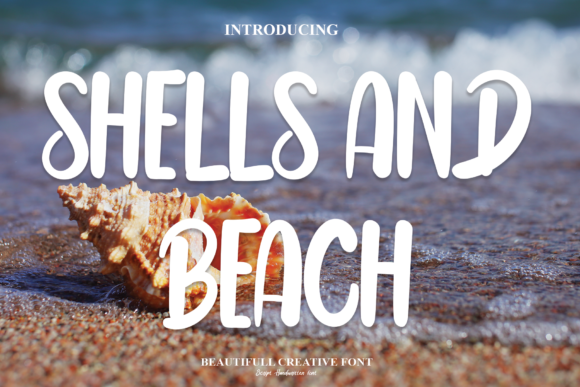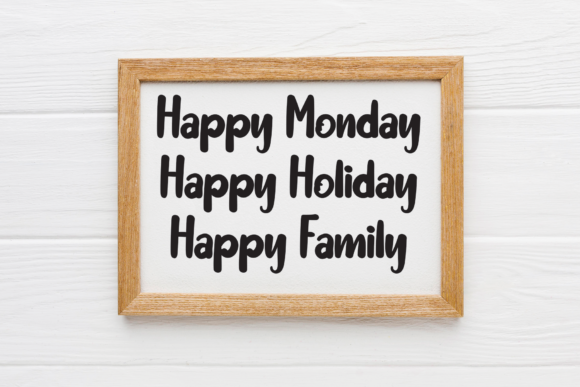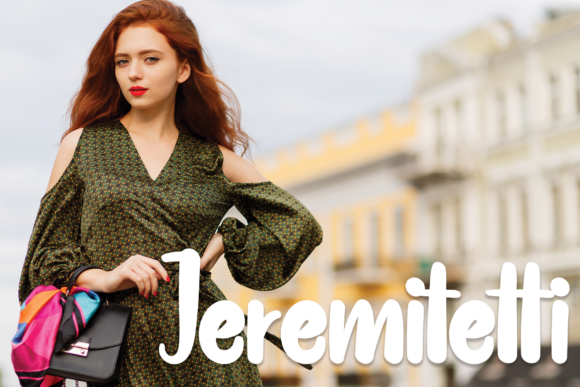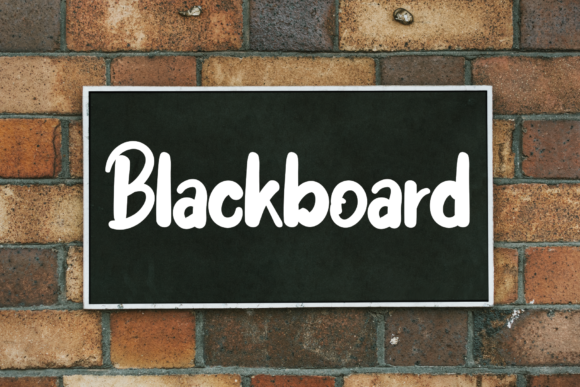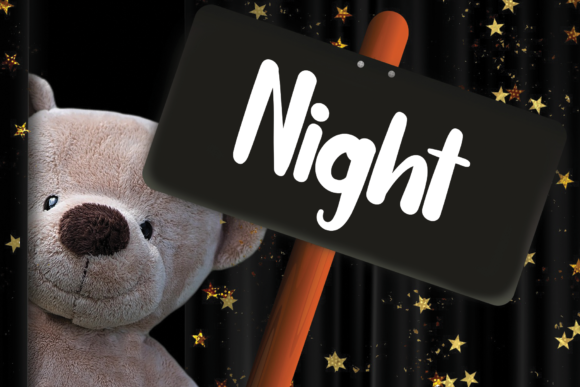
Shells and Beach Font
About Shells and Beach Font
Shells and Beach is a charming and versatile handwritten font that embodies simplicity, uniqueness, and adaptability. With its elegant and organic letterforms, this font is a fantastic addition to a variety of design projects, allowing you to create stunning visuals that capture the essence of coastal beauty and relaxation.
The simplicity of Shells and Beach ensures readability and clarity, making it a great choice for conveying your message effectively across different design applications. Whether you’re designing wedding invitations, crafting business cards, or creating heartfelt greeting cards, the font’s clean lines and straightforward design maintain a polished and professional appearance.
What sets Shells and Beach apart is its unique and handcrafted feel. The font’s delicate strokes and natural flow give it a personal touch that adds authenticity and warmth to your designs. The subtle imperfections and artistic details in each character evoke a sense of artisanal craftsmanship, making your projects stand out.
Shells and Beach’s adaptability is a standout feature, allowing it to seamlessly blend with various design styles and themes. Whether you’re aiming for a beachy and relaxed vibe or a more sophisticated coastal look, the font can be customized to suit your project’s specific mood and tone.
Adding Shells and Beach to your wedding invitations can infuse your special day with a sense of seaside romance and tranquility. The font’s elegant and flowing letters evoke the gentle waves and the beauty of seashells, creating a captivating visual representation of your love story.
For business cards, Shells and Beach offers a unique and memorable aesthetic that sets you apart from the crowd. Its adaptability allows you to tailor the font to reflect your brand’s identity, whether you’re a beach-themed boutique or a coastal-inspired service.
Greeting cards become more heartfelt and meaningful with the addition of Shells and Beach. Whether it’s a birthday, thank-you, or any special occasion card, the font’s organic and graceful style conveys your sentiments in a genuine and heartfelt way.
On social media, Shells and Beach captures attention with its distinctive and soothing design. Whether you’re sharing beach quotes, vacation memories, or promoting coastal events, the font’s adaptability enables you to create visually appealing posts that resonate with your followers.
Incorporating Shells and Beach into wall art and other creative projects allows you to bring a touch of the beach into any space. Its elegant strokes and seaside-inspired charm can transform ordinary walls into captivating focal points that transport viewers to a tranquil coastal paradise.
In summary, Shells and Beach is a versatile and elegant font that brings the beauty of the beach to your designs. Its simplicity, uniqueness, and adaptability make it an excellent choice for creating stunning visuals across a wide range of projects, from wedding invitations to social media posts and beyond.